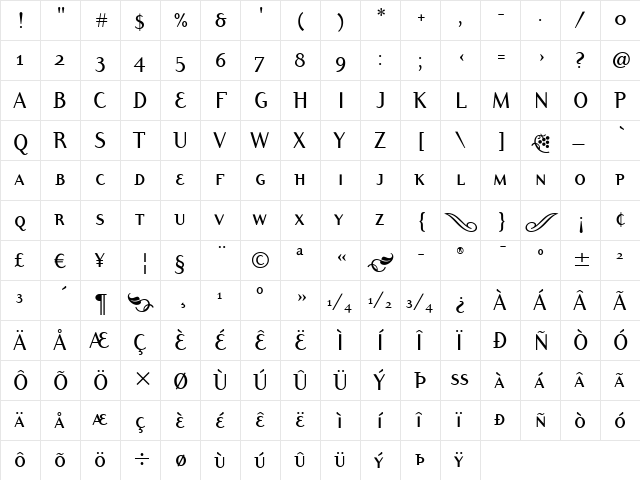
Dyadis ITC Medium Font Preview
Dyadis ITC Medium
Dyadis ITC Medium Font Details
Design Context for Dyadis ITC Typeface
Dyadis ITC is a composed and adaptable typeface that performs quietly and consistently across a wide range of design contexts.